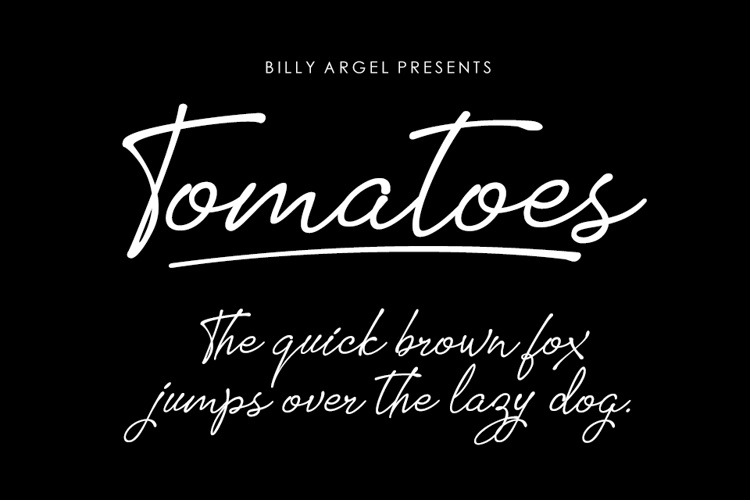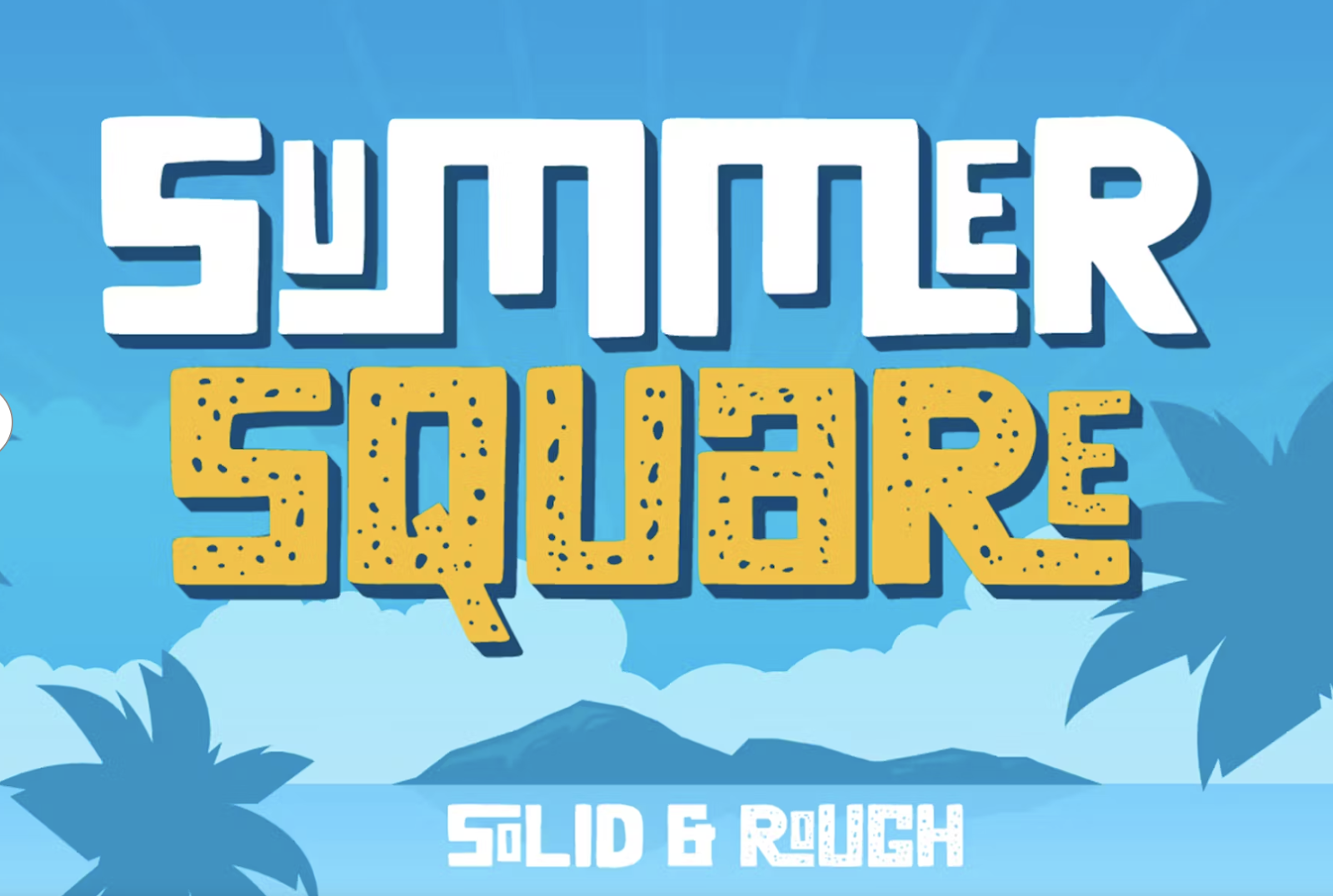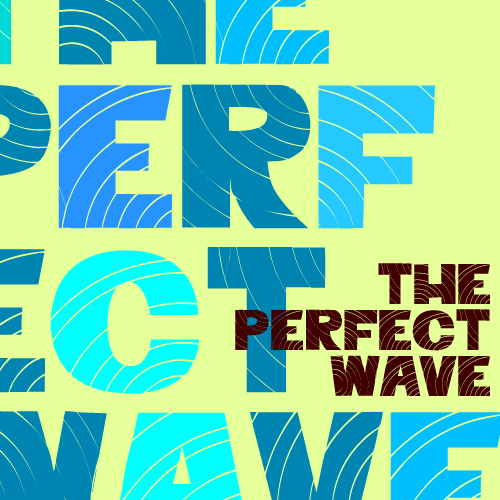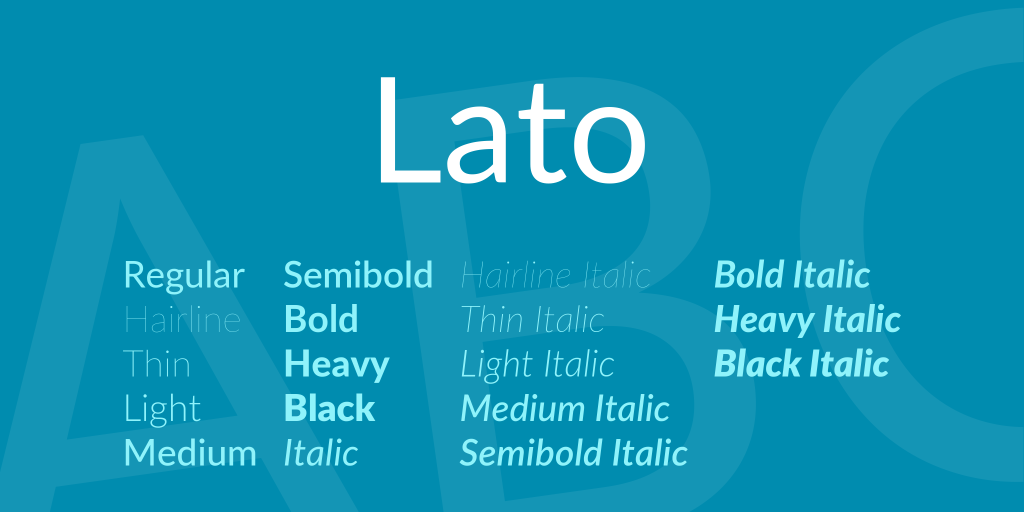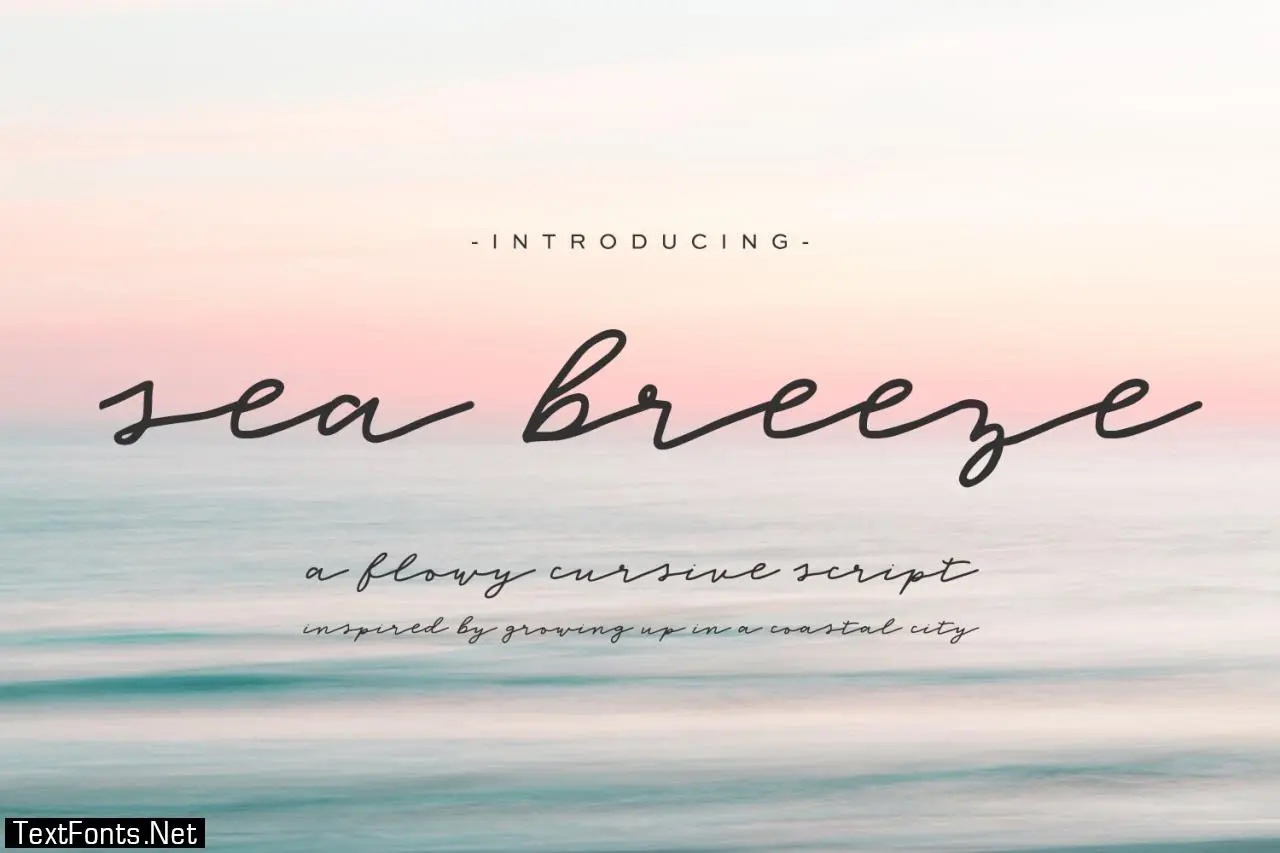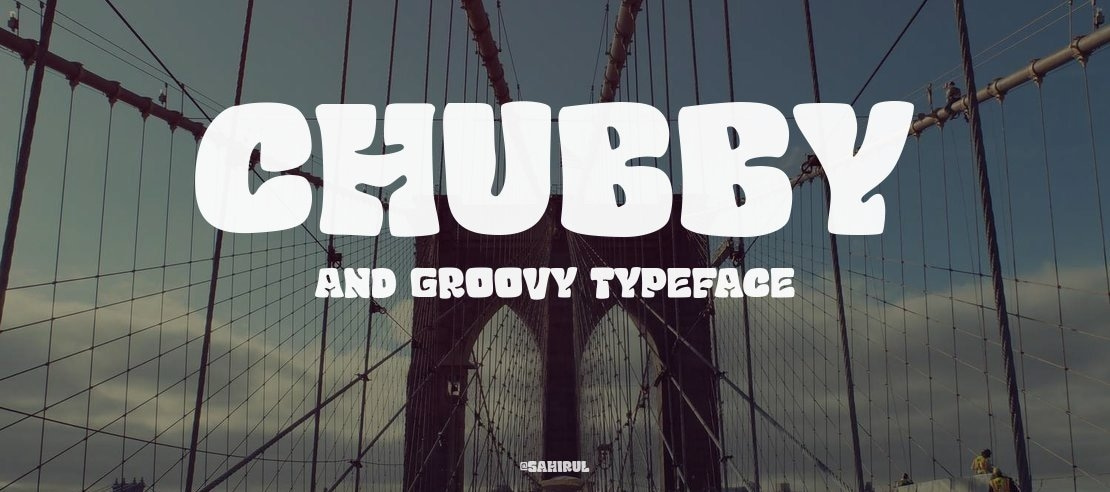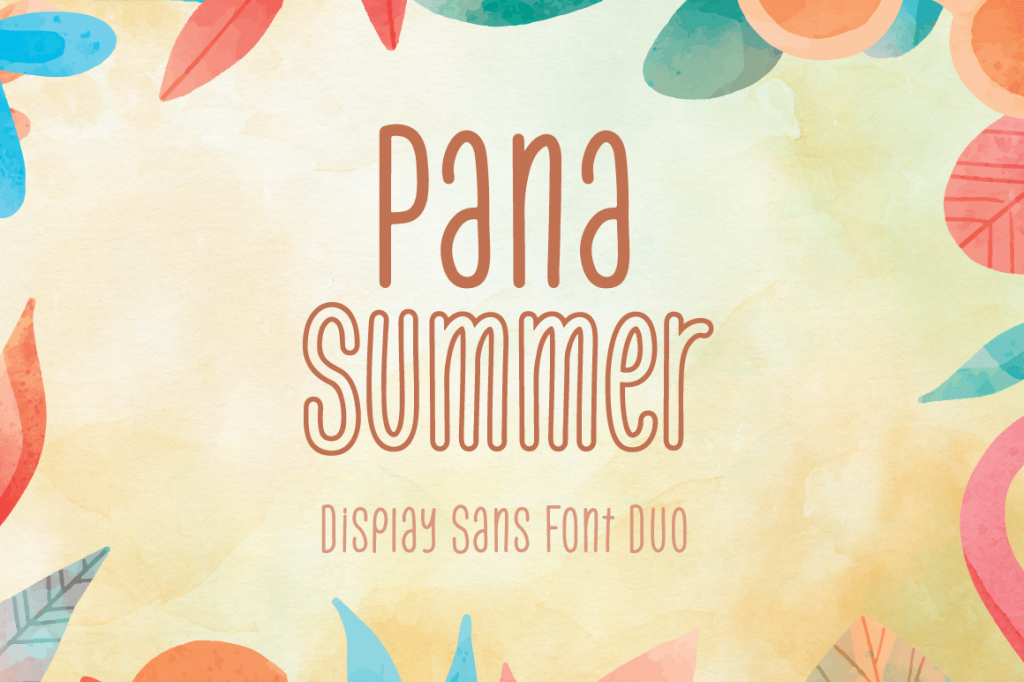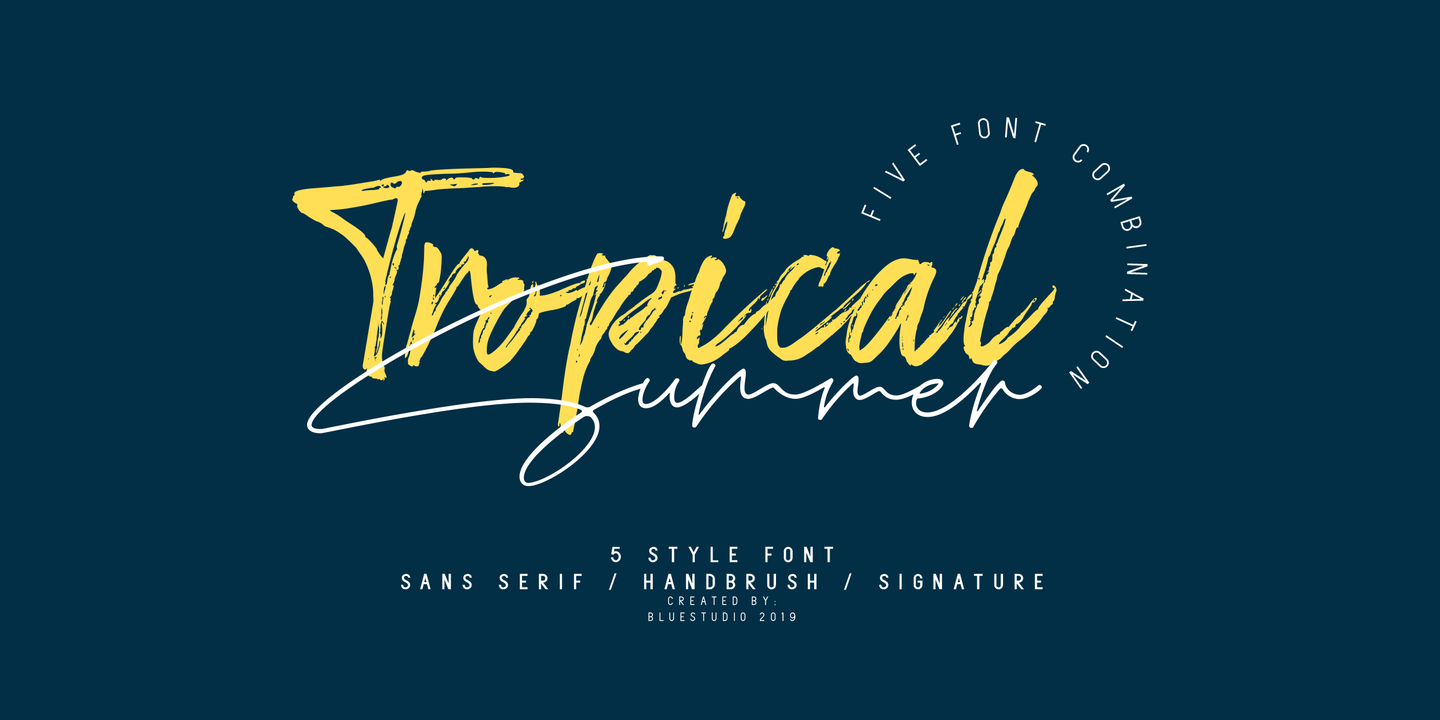
The perfect font can take your design projects to the next level. Good news - there's a goldmine of free summer fonts out there to brighten up your designs and capture that easy-going summer feel.
1. Pacifico (Free)
Pacifico is a fun brush script font that draws inspiration from 1950s American surf culture. Vernon Adams designed it in 2011, and it has a playful, hand-written look.
Fun Ways to Use It: Great for summer-themed social media designs, and branding projects that need a laid-back friendly feel.
2. Summer Vibes (Free)
This font brings out the feel of summer with its loose, airy strokes. It has thin lines and soft curves, showing a real and genuine quality.
Fun Ways to Use It: This summer holiday font works great for YouTube thumbnails, stickers, and promotional landing pages. You can use it on its own or pair it with a bold font for headings.
3. Beach Crush (Free for personal use)
Beach Crush, made by DMletter Studio, is a bold, colorful, handwritten font with unique letter shapes that give off a youthful vibe.
Fun Ways to Use It: Great for showing the free-spirited summer feeling in branding projects, packaging, party flyers, posters, and social media graphics.
4. Tomatoes (Free for personal use)
Tomatoes has an influence on designs with its thin lines and cursive style. Its beautiful light look adds a special spark to your creations.
Fun Ways to Use It: Great for art projects and designs needing a light touch. Be careful when using this summer holiday font as a display font, as it might be hard to read.
5. Esencia (Free)
CastleType's Esencia takes its cues from a Spanish stock certificate from 1941. It showcases 11 stunning Art Deco-style letters that mix grace with a lively, summer-like vibe. This typeface works with most European languages, including Greek and Cyrillic.
Fun Ways to Use It: Great to create classy summer branding, stylish invitations, or premium product packaging.
6. Tropical Asian (Free for personal use)
This font from Konstantine Studio is one of those summery fonts that gives off a laid-back and easy-going feel. It's made with brush and ink on paper capturing the spirit of a tropical paradise.
Fun Ways to Use It: Great for beach resort branding, summer festival ads, and exotic travel materials.
7. Palm Beach (Free for personal use)
Palm Beach is a bold, wide-lettered font with a cool palm leaf pattern throughout. It is unique and perfect for creating summer-themed designs.
Fun Ways to Use It: This font gives a fresh twist on plain t-shirt designs, beach party invites, and tropical-themed brand designs.
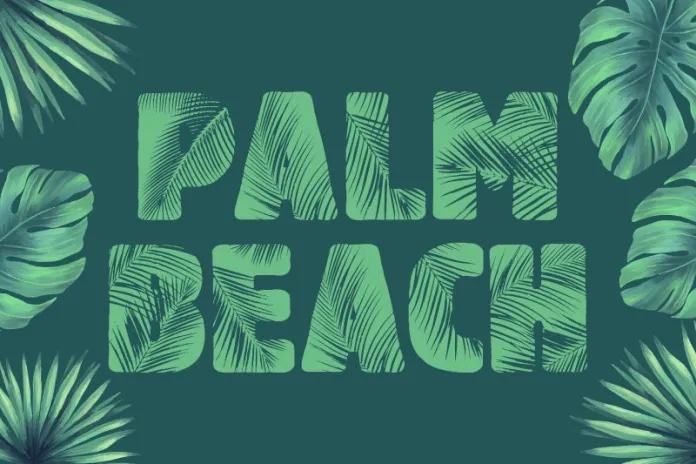
8. Tiki Tropic (Free for personal use)
This summer font set livens up designs with lots of pictures like jumping dolphins, palm trees, flowers, and Tiki masks. It covers many alphabets beyond just basic Latin letters.
Fun Ways to Use It: This font is spot-on for Luau party flyers, tropical resort brands, and summer event posters.
9. Beach Party (Free for personal use)
Beach Party is one of the top summery fonts because it shows off a fun, hand-drawn style with upbeat beachy vibes and a lively feel. Its thick bold letters and lowercase characters bring thoughts of summer celebrations to mind.
Fun Ways to Use It: This font works well to design beach party flyers, summer event posters, and festive social media graphics.
10. Summer Square (Free for personal use)
This fun font has square-shaped letters that look like they're from the Spongebob Squarepants cartoon. You can get it in normal and textured versions.
Fun Ways to Use It: Great for playful type designs and summer projects.
11. The Perfect Wave (Free)
This enjoyable font aims to help you ride the best typographic waves. It represents the core of surfing and ocean experiences.